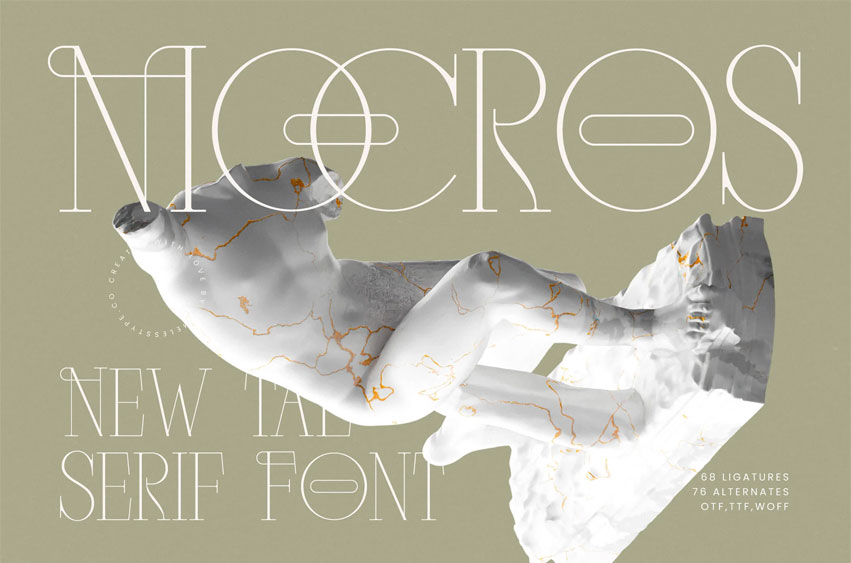
Mocros Font
Mocros Font is a refined tall serif display font designed with elegant geometry, ultra-thin strokes, and sophisticated ligature architecture, creating a clean yet artistic high-fashion aesthetic. Its elongated proportions, minimalist curves, and meticulously crafted alternates make it ideal for luxury branding, editorial titles, packaging, campaigns, magazine layouts, and modern visual identities that demand a sleek and elevated typographic presence.
Mocros blends contemporary elegance with artistic expression, delivering a premium visual impact in every project.